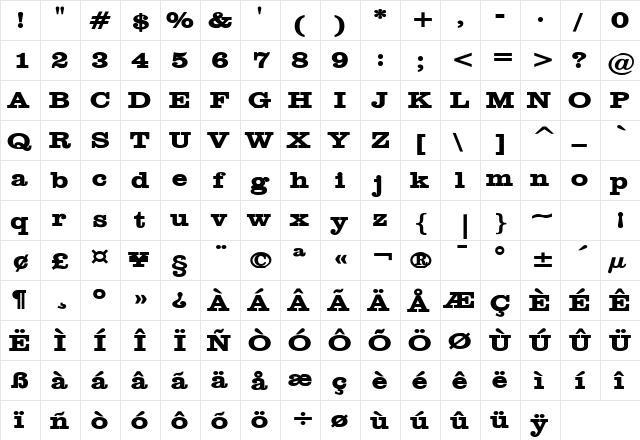
Clare Wide Bold
Design Context for Clare Wide Typeface
Clare Wide takes a measured approach to typography — its balanced proportions and neutral character make it a reliable workhorse for both digital and print work. The heavy weight commands attention and anchors typographic hierarchies.